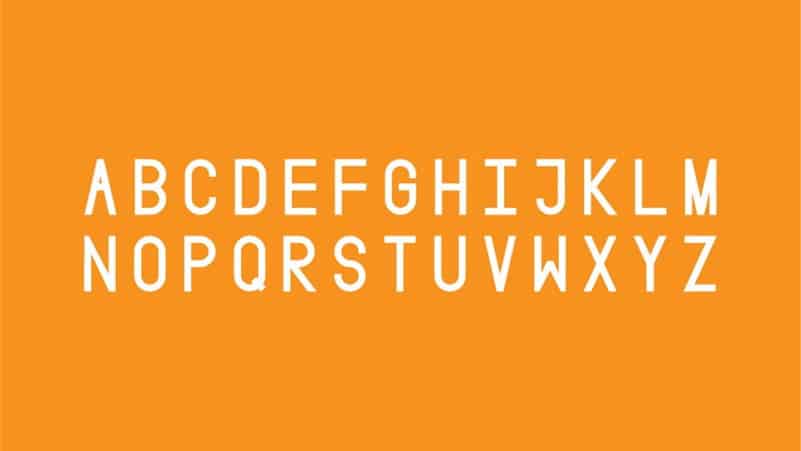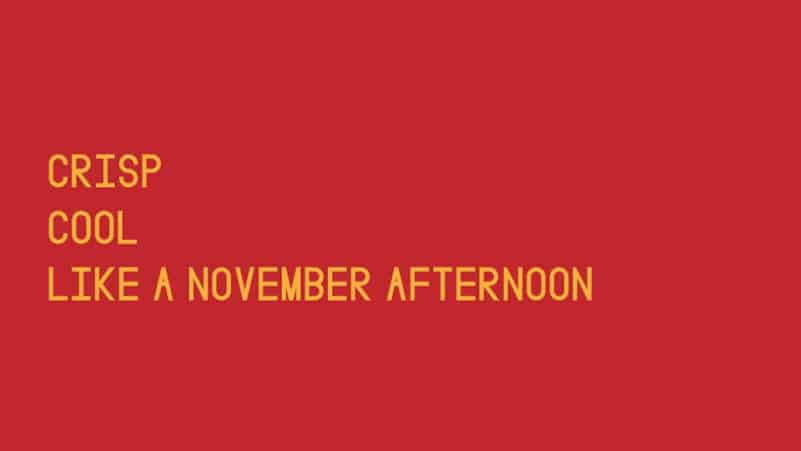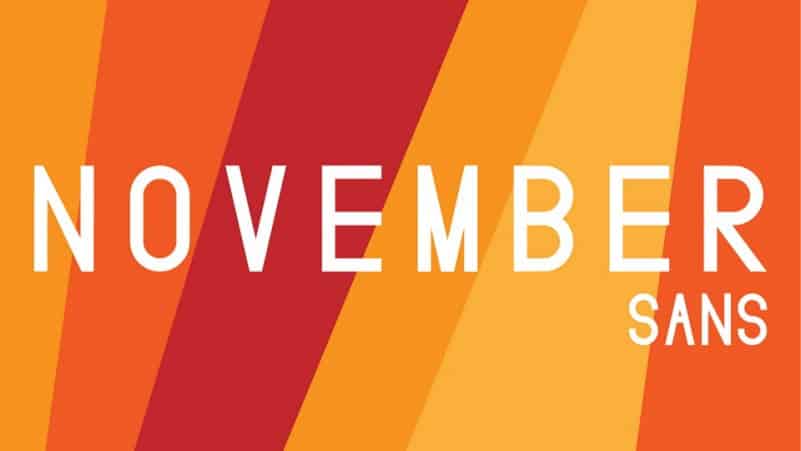
November Sans Serif Font is a modern sans serif font. You can use sans serif font feature in many areas easily. It’s a free sans serif display typeface manufactured by Mackenzie Davenport, crisp and cool like a november afternoon. The font perfectly fits for headlines, posters, banners and more.